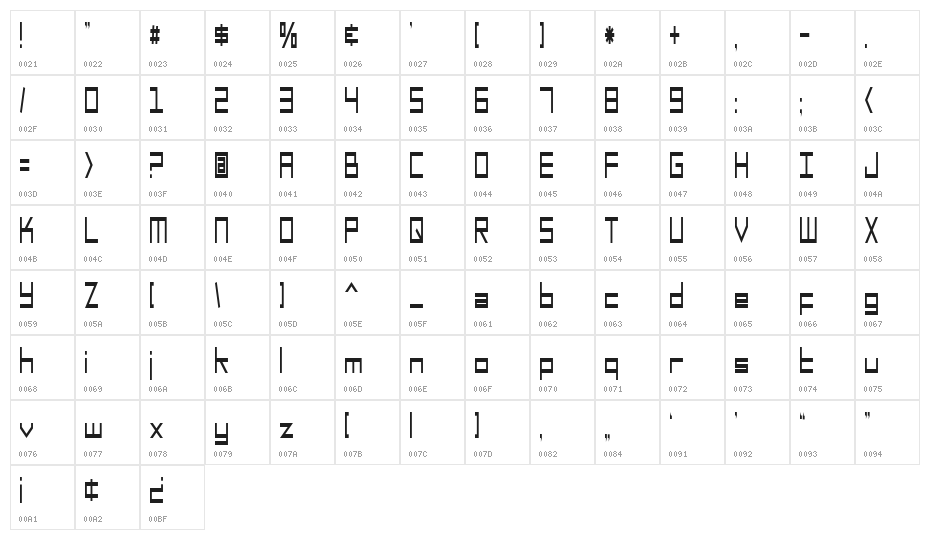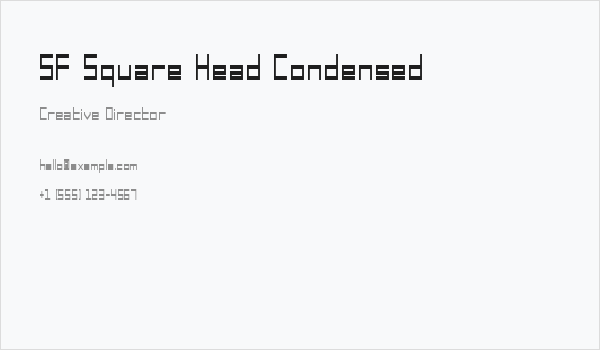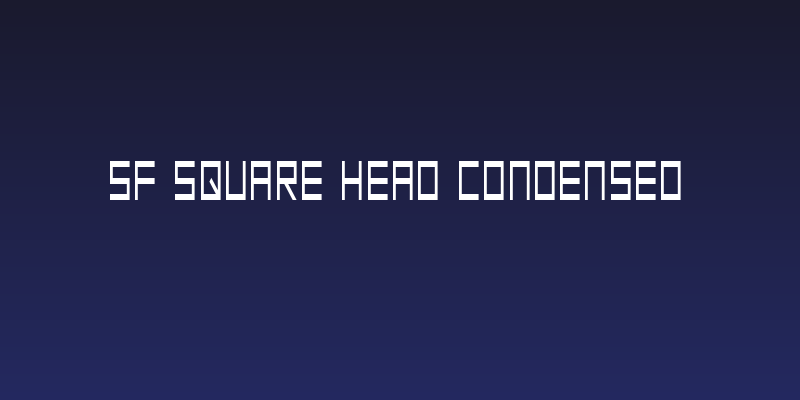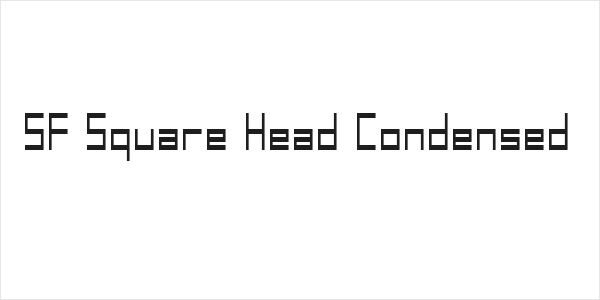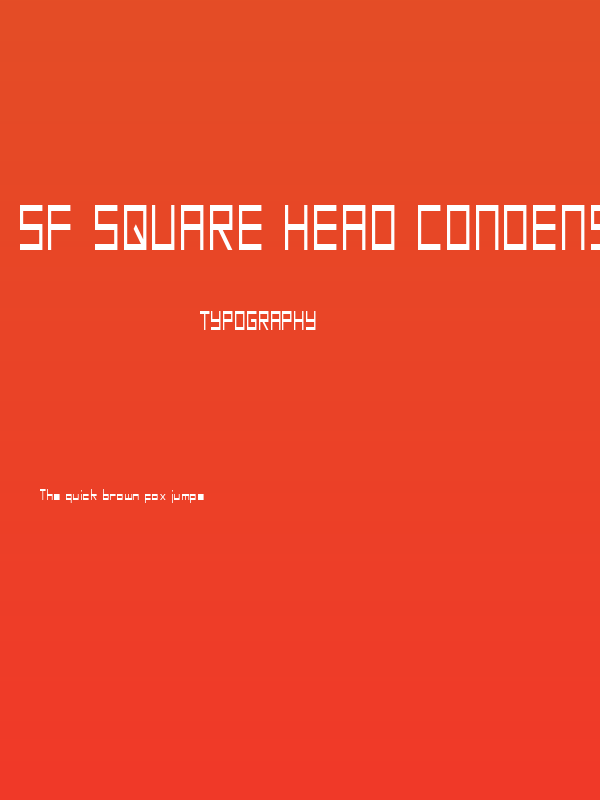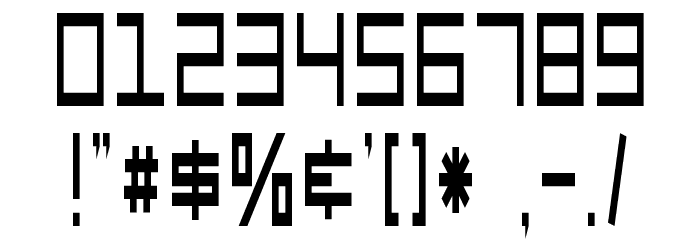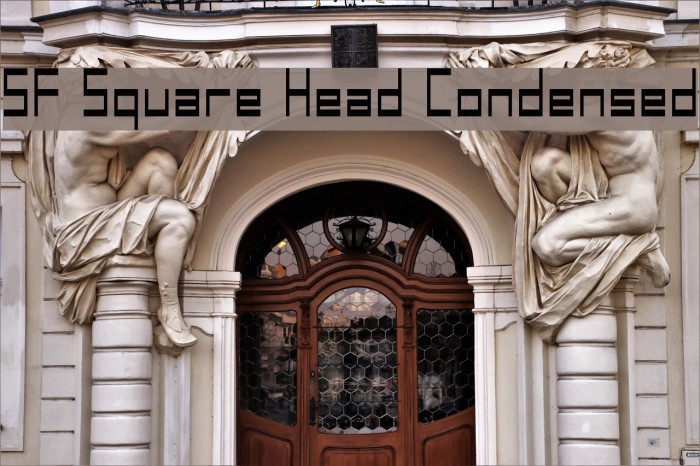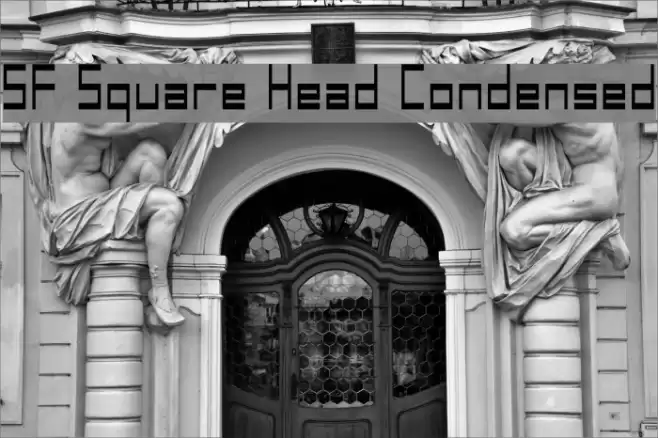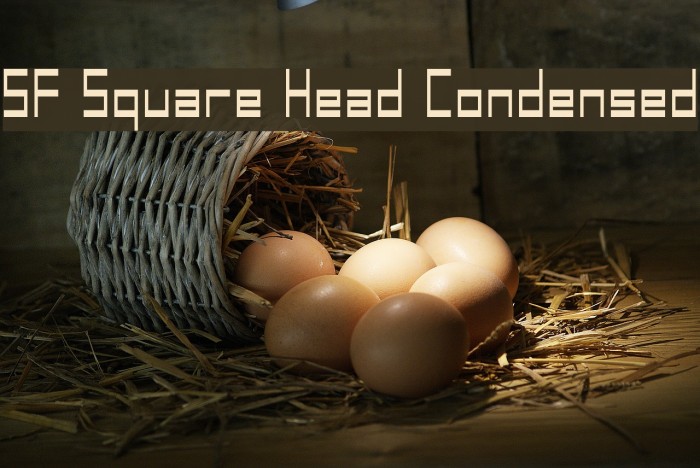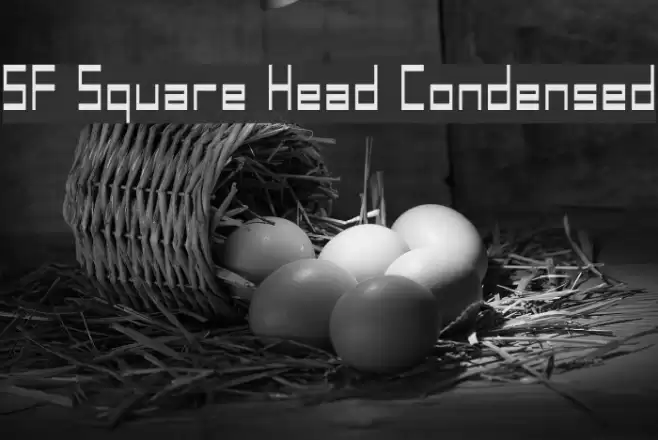
SF Square Head Condensed Font
SF Square Head Condensed Description
This font features a geometric and futuristic design with a square and condensed structure. The characters are uniform in width, creating a cohesive and modern appearance. The uppercase and lowercase letters maintain a consistent height, enhancing readability. The numerals and special characters follow the same geometric style, making them suitable for digital and tech-oriented projects. The sharp angles and straight lines give it a sleek and contemporary look, ideal for conveying a sense of innovation and modernity.
| Width | Condensed |
| Use Case | Headlines, Logos, Digital interfaces |
| Proposed Projects | Ideal for tech branding, digital interfaces, video game graphics, and futuristic posters. |